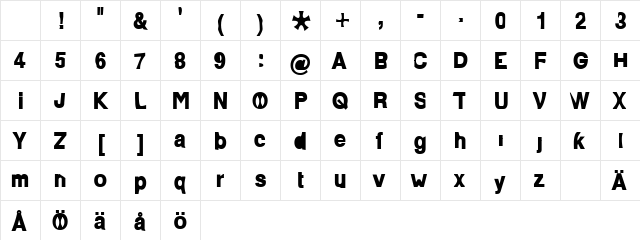
Paolo Bold is a composed and adaptable typeface that performs quietly and consistently across a wide range of design contexts. Its bold stroke weight gives it real presence on the page.